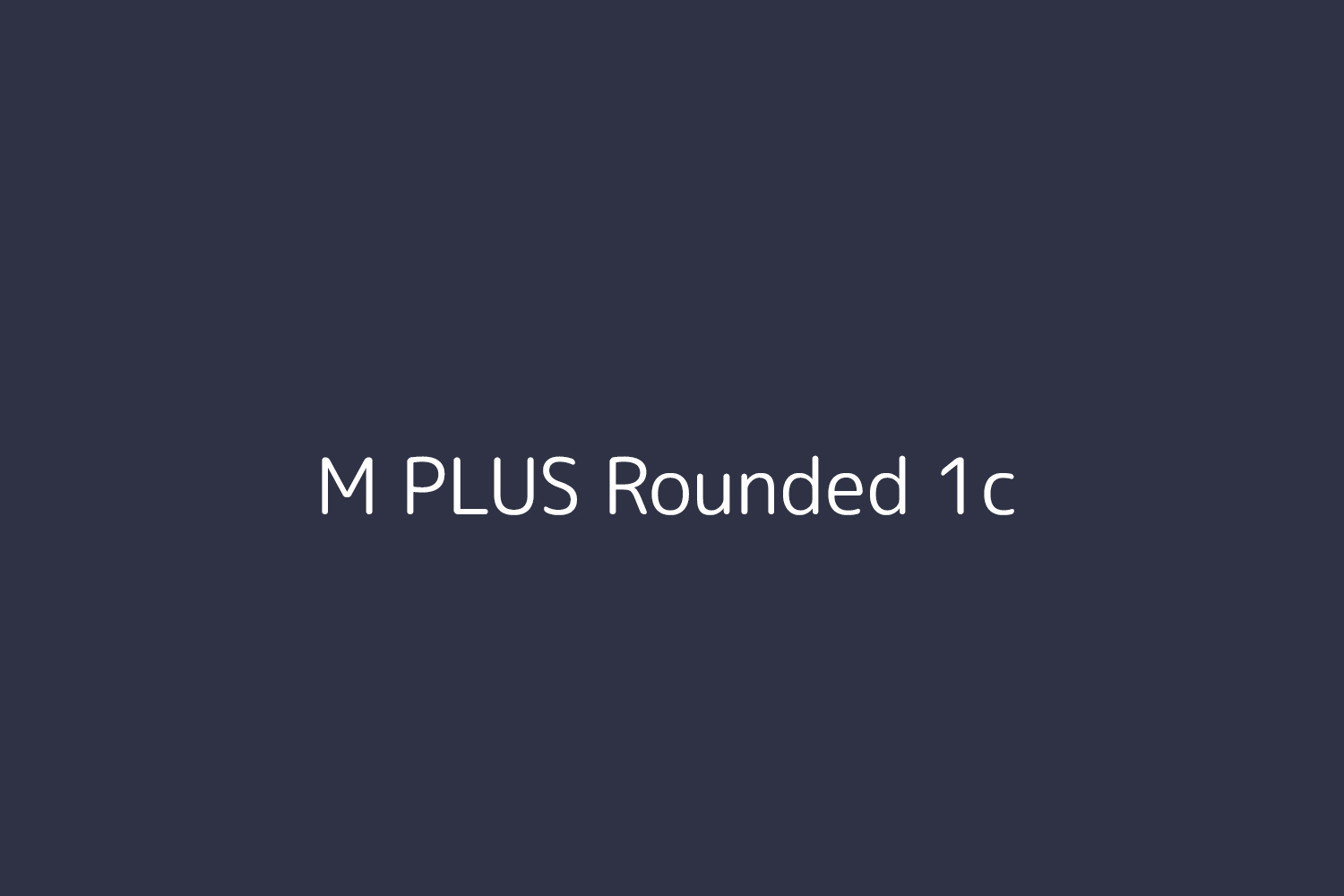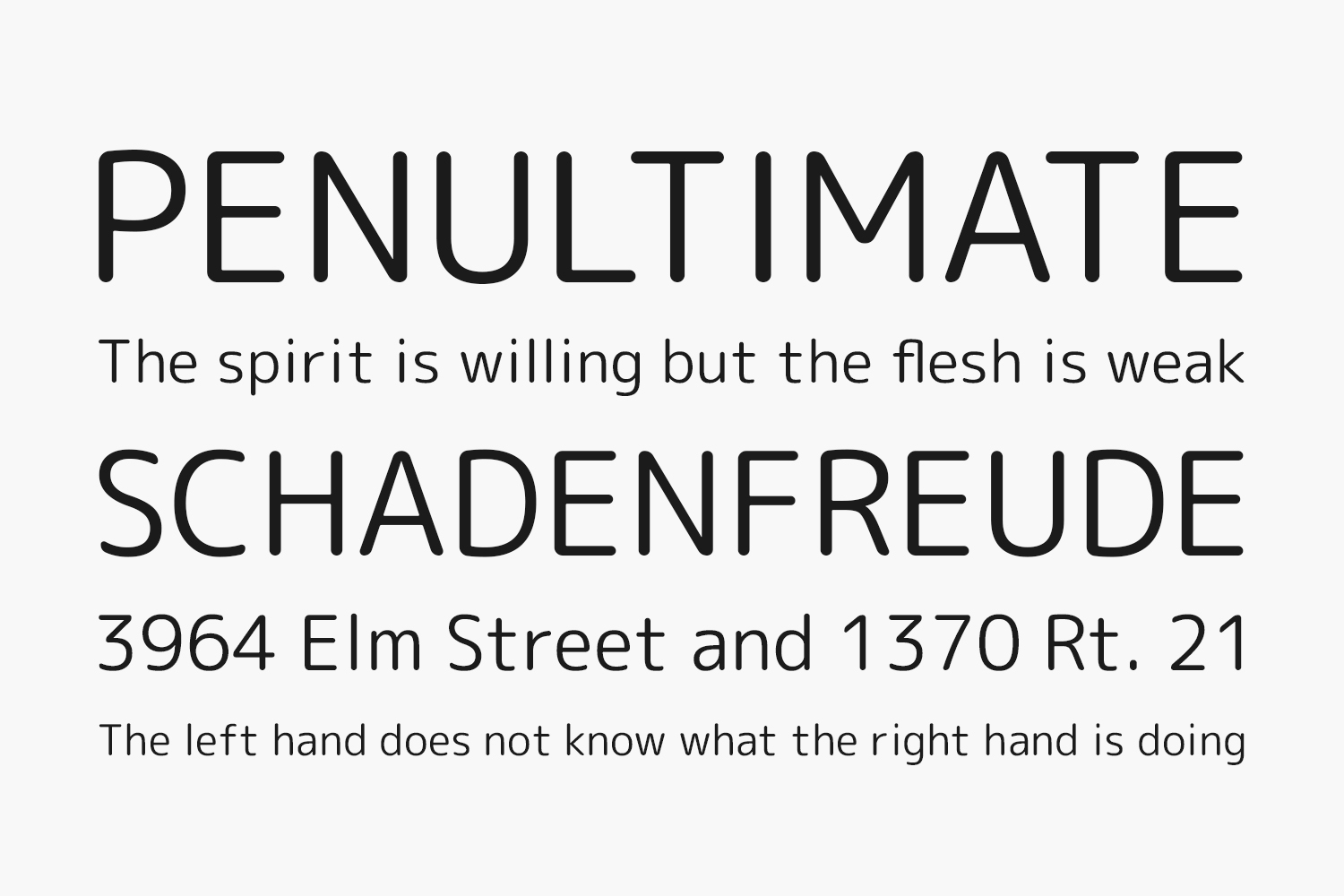
The M+ Outline Fonts Project develops a superfamily set of several families: 4 families with proportional Latin, 3 with fixed-halfwidth Latin, and 2 with fixed-fullwidth Japanese Kana variations.
The Rounded M+ Project develops versions of the M+ Fonts with rounded terminals.
This set, Rounded M+ 1c, are fonts with proportional Latin and fixed-fullwidth Japanese, and 7 weights from Thin to Black. The Kana have traditional slightly curved strokes. The Latin is optimized to be well-proportioned for text typesetting.
Designed by Coji Morishita